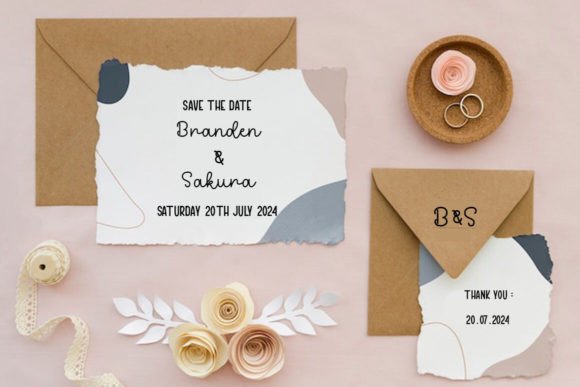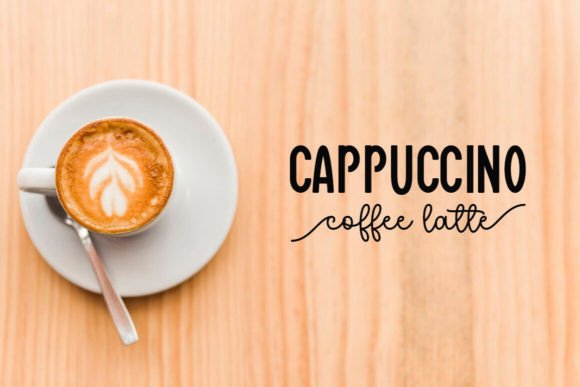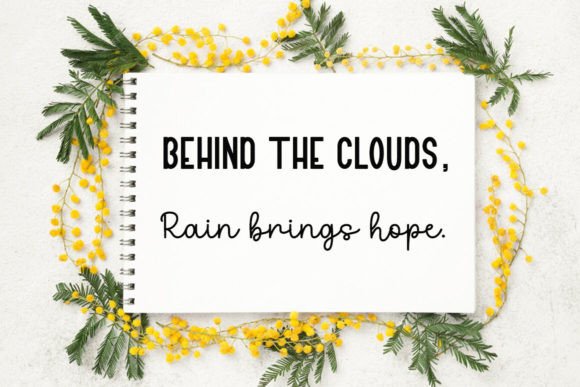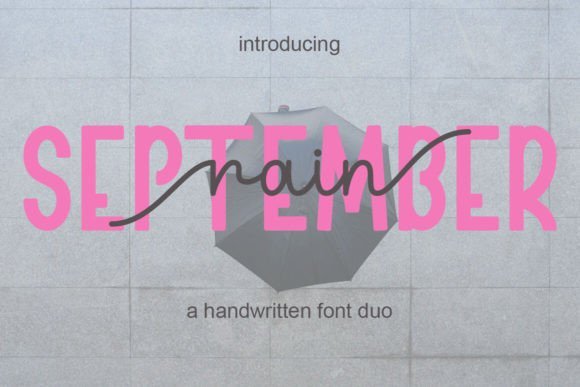
Introduction to September Rain Font
September Rain is a lovely handwritten font duo featuring well-rounded characters and a stylish vibe.
Get inspired by its light and approachable style, and use it in your favorite creations This font is PUA encoded which means you can access all of the glyphs and swashes with ease.
Key Features of September Rain Font
Why Choose September Rain Font?